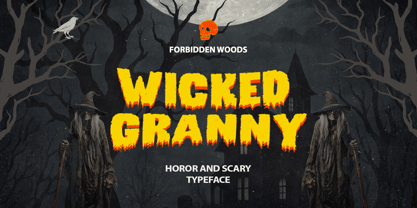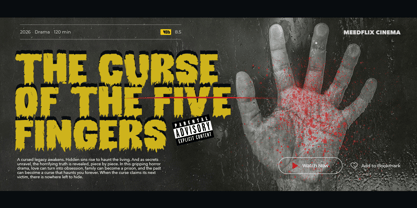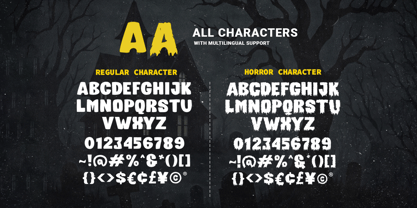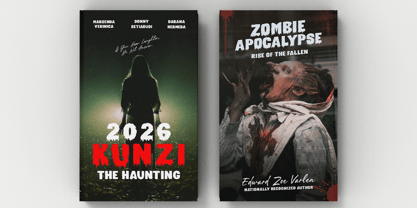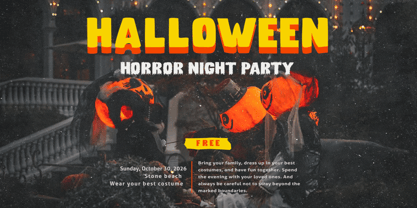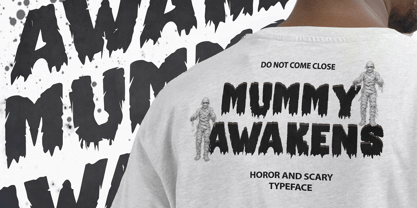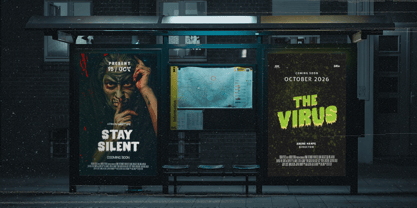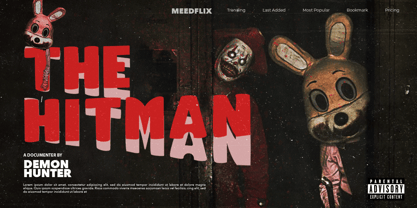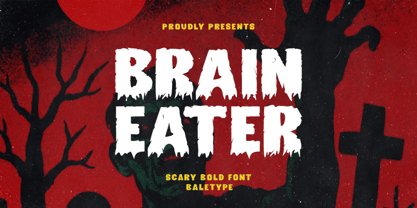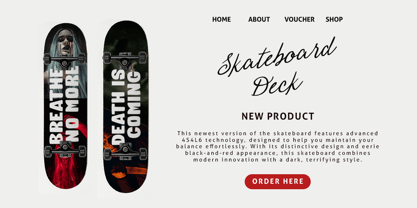
Brain Eater
by Bale Type
The Brain Eater Font Family was designed by Albin Pawaz and published by Bale Type. Brain Eater contains 2 styles and family package options. More about this family
Introducing Brain Eater, a creepy bold horror font designed to bring a raw and unsettling atmosphere to your designs. Featuring rough edges and distinctive letterforms, this font gives you plenty of creative freedom to create unique and eye-catching typography. Perfect for movie posters, Halloween artwork, book covers, quotes, album artwork, and other spooky projects, Brain Eater is not limited to horror themes, with regular font you can also use it for playful, edgy, or unconventional designs that need a bold and expressive touch. This font also includes multilingual support, making it a versatile choice for creative projects around the world.
Designers: Albin Pawaz
Foundry: Bale Type